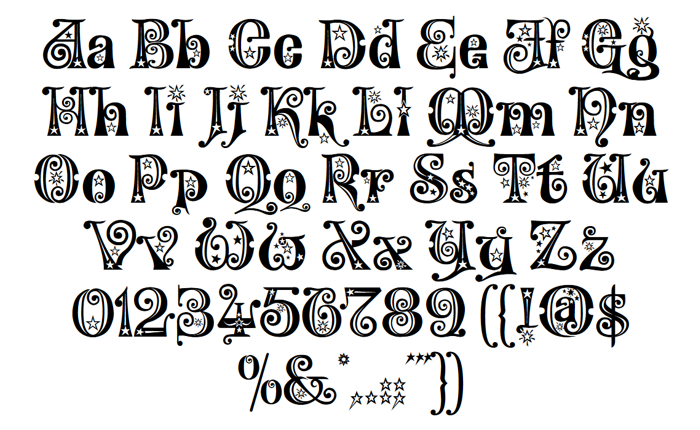
Kingthings Willow Font
Kingthings Willow and Willowless These fonts started out very much different to how they ended up, Willow was based on a sheaf of willow twigs, with stars for added 'twing!' Unfortunately the font size was huge and I settled on this simplified version. It was originally designed with Willow from Buffy the vampire slayer in mind - it ended up as a decorated font - because I like making them. Kingthings Willowless is less ornate and makes a good contrast if all the embellishment of Willow is too much of a good thing.